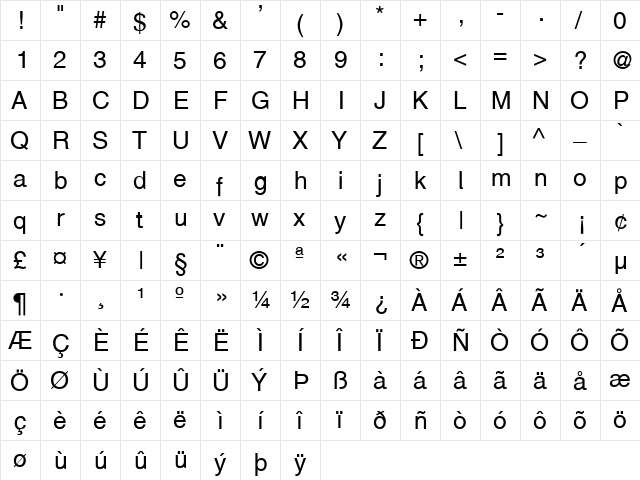
Cetus Regular Font Preview
Cetus Regular
Cetus Regular Font Details
Design Context for Cetus Typeface
Cetus takes a measured approach to typography — its balanced proportions and neutral character make it a reliable workhorse for both digital and print work.
Pro Tip: Use Cetus in both headline and body roles to test its range before committing to a single application.